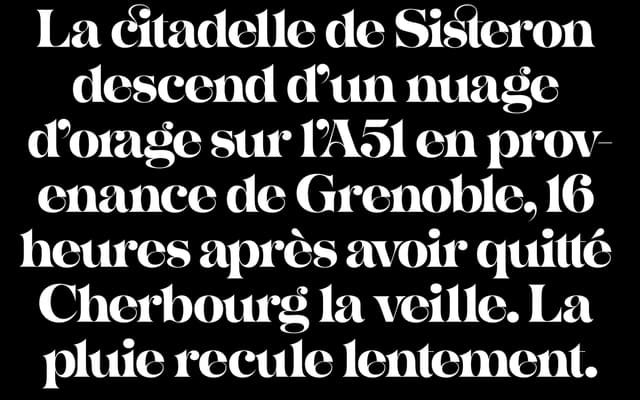
A Jugendstil display face with 543 glyphs including a broad set of alternates and extended language support.
Drawing on the decorative vocabulary of the Central European Art Nouveau movement, Sisteron is a single-weight display typeface with a richly stocked character set. The 543 glyphs include numerous alternates and foreign characters covering dozens of languages, giving it more practical range than most ornamental revival faces. Best suited to titles, packaging or editorial contexts where a period Art Nouveau aesthetic is called for.
Explicitly described as Jugendstil in style, placing it within the Central European branch of the Art Nouveau movement. Decorative, period-referencing letterforms suited to display use only.